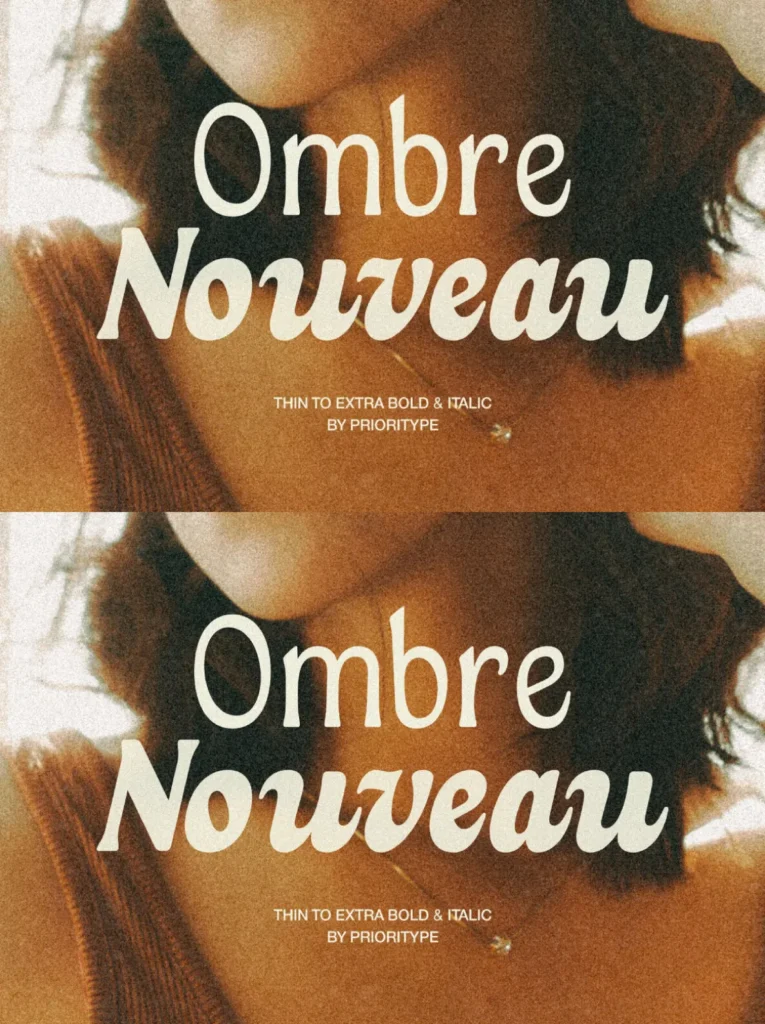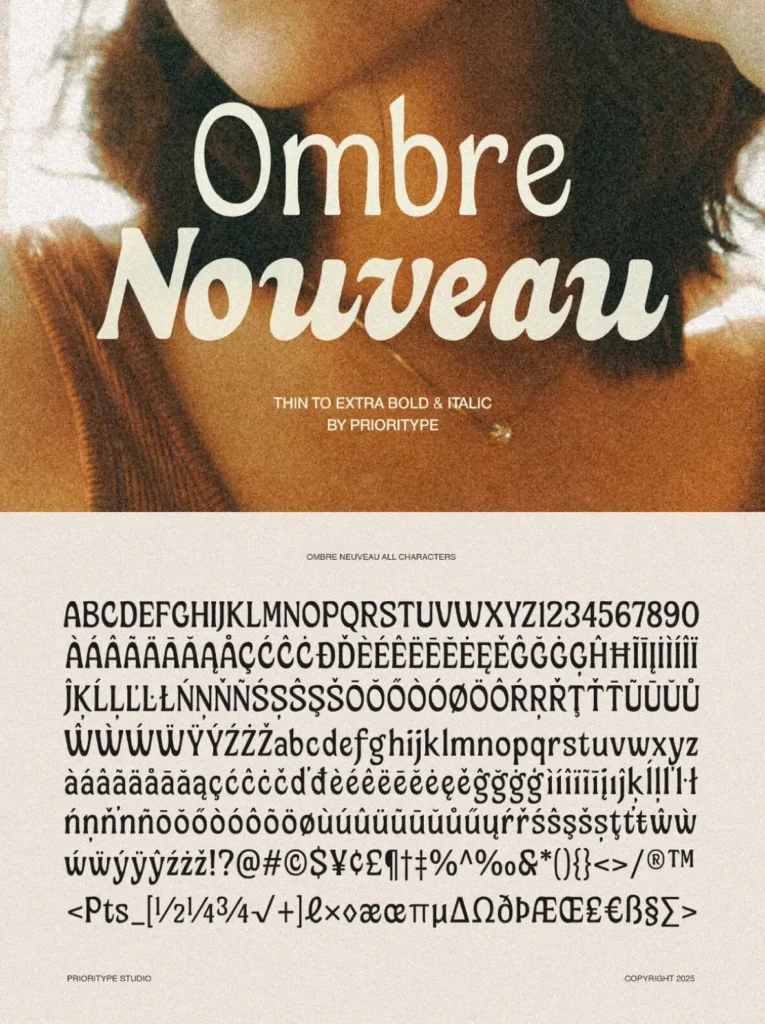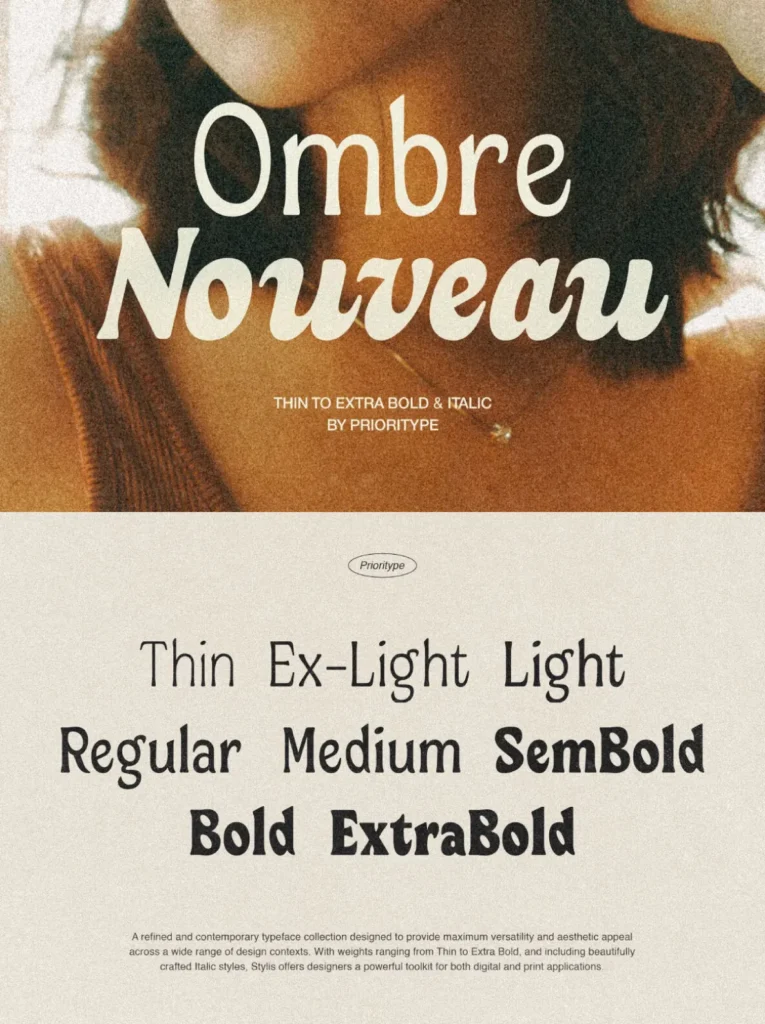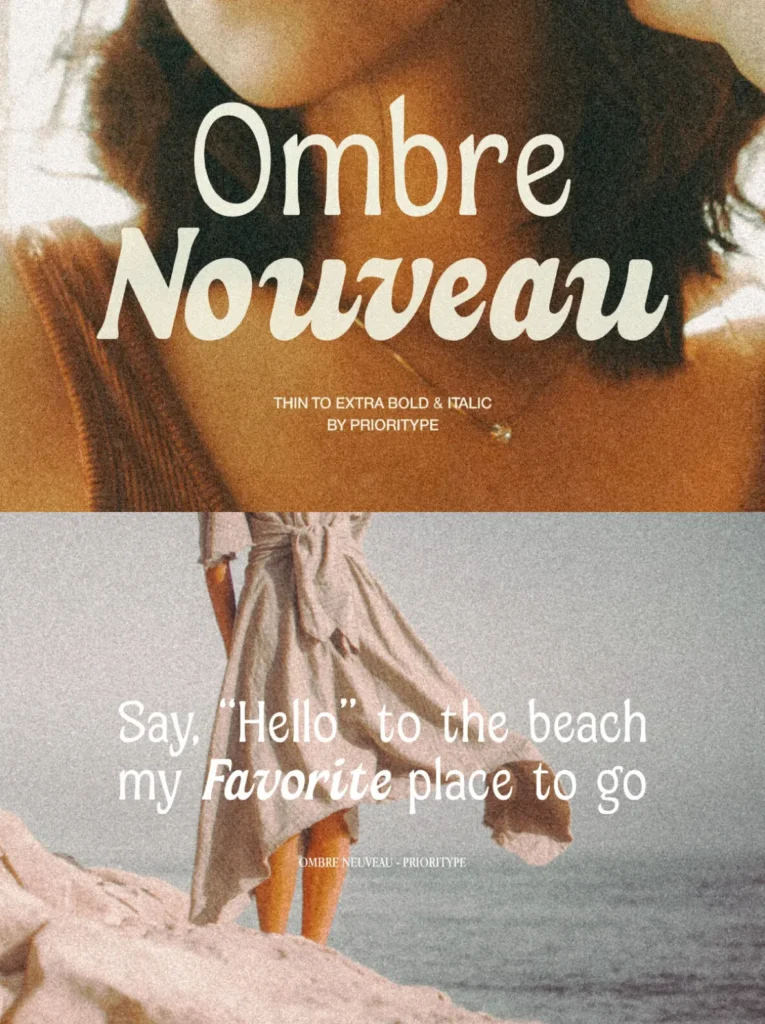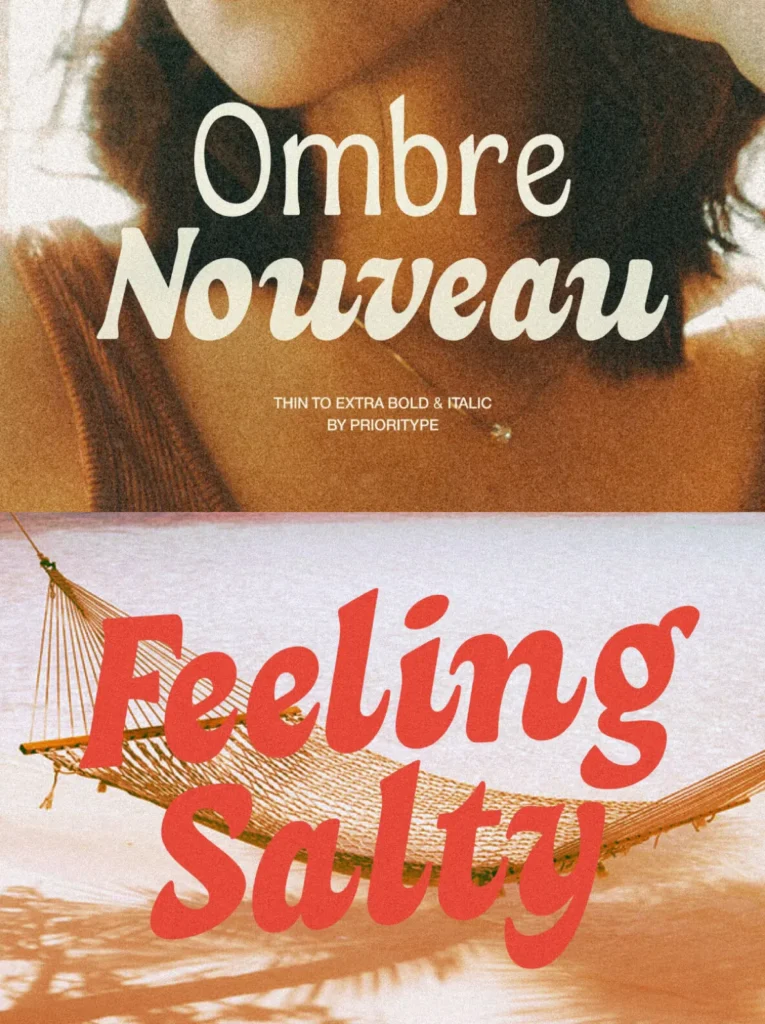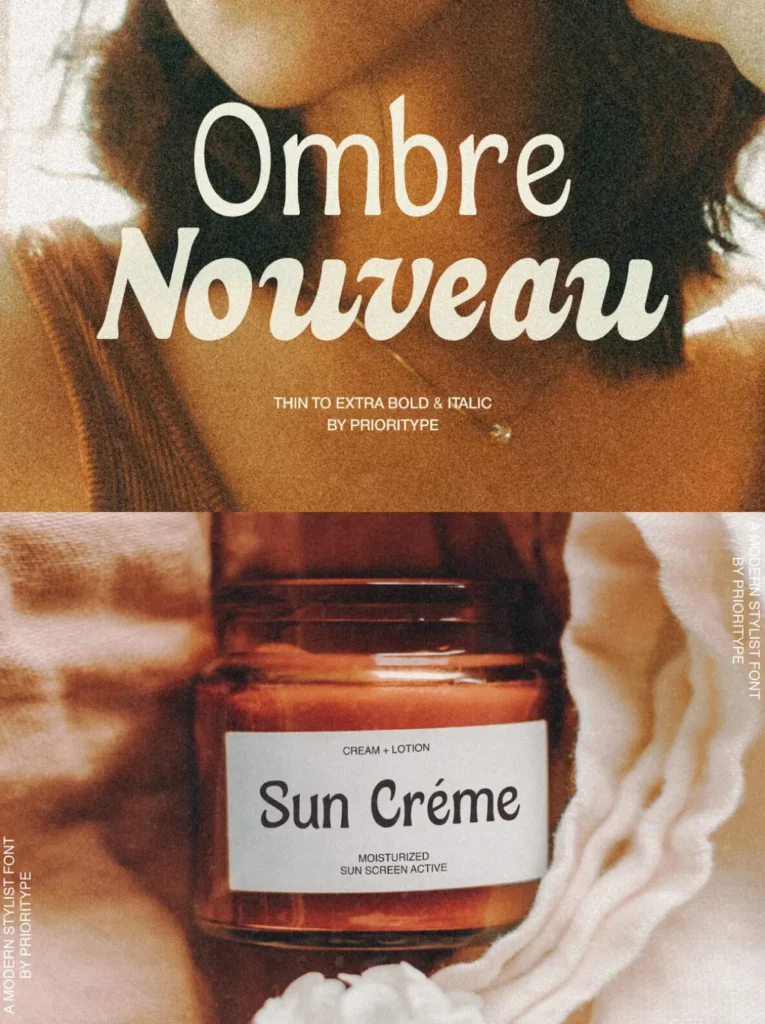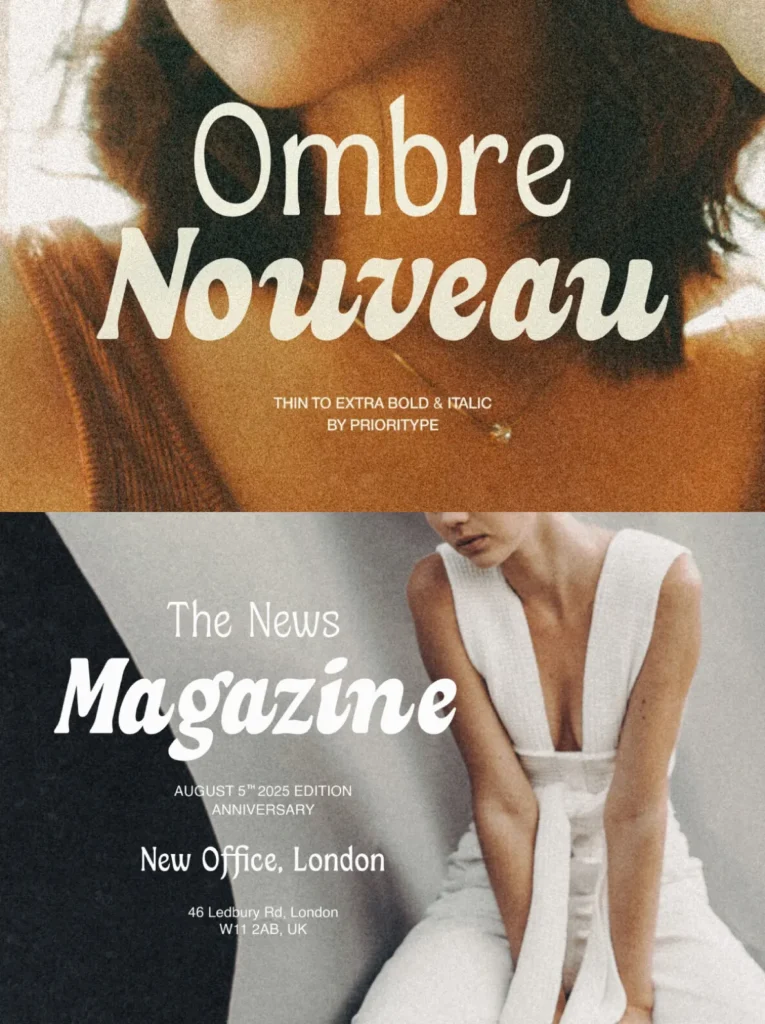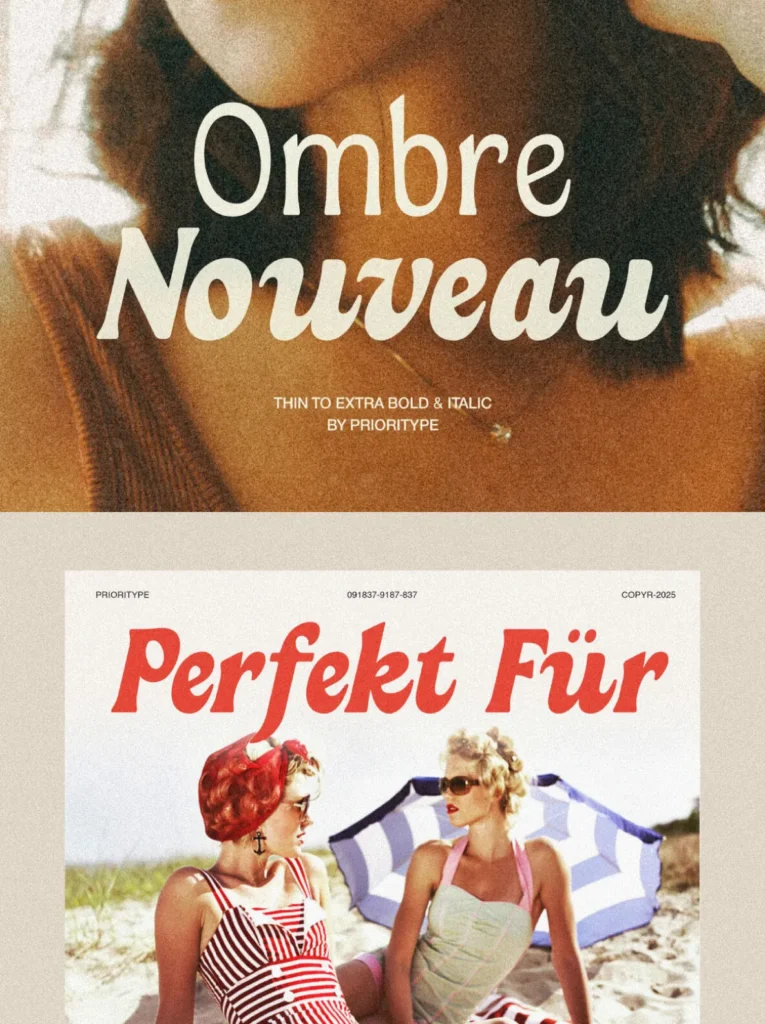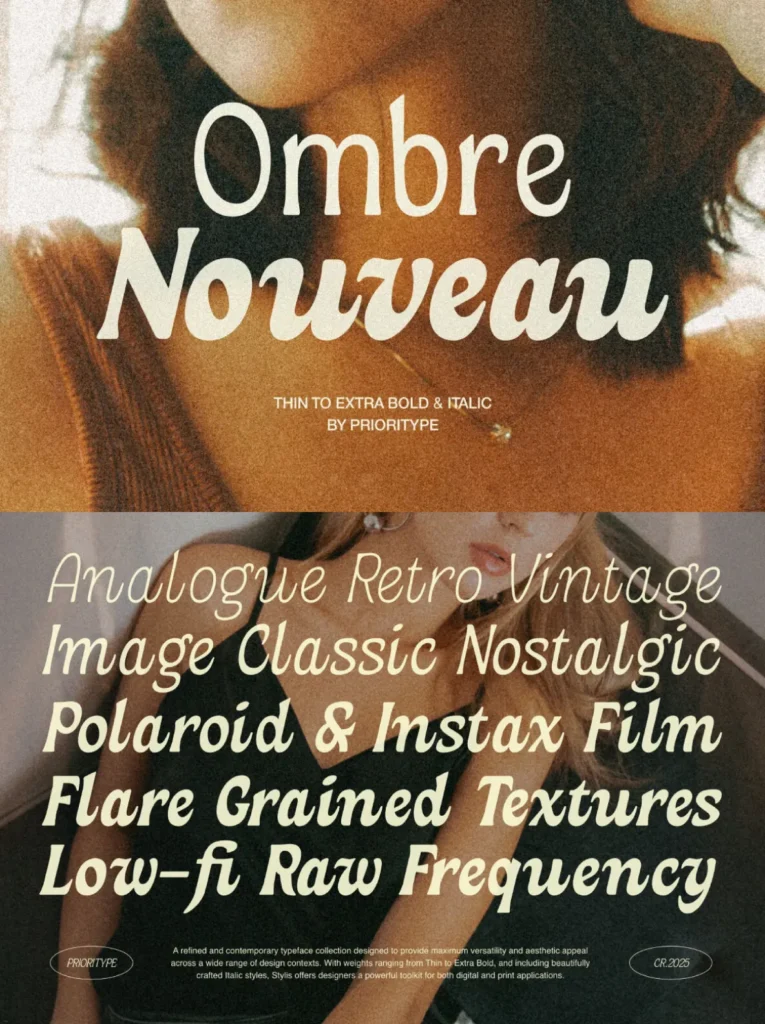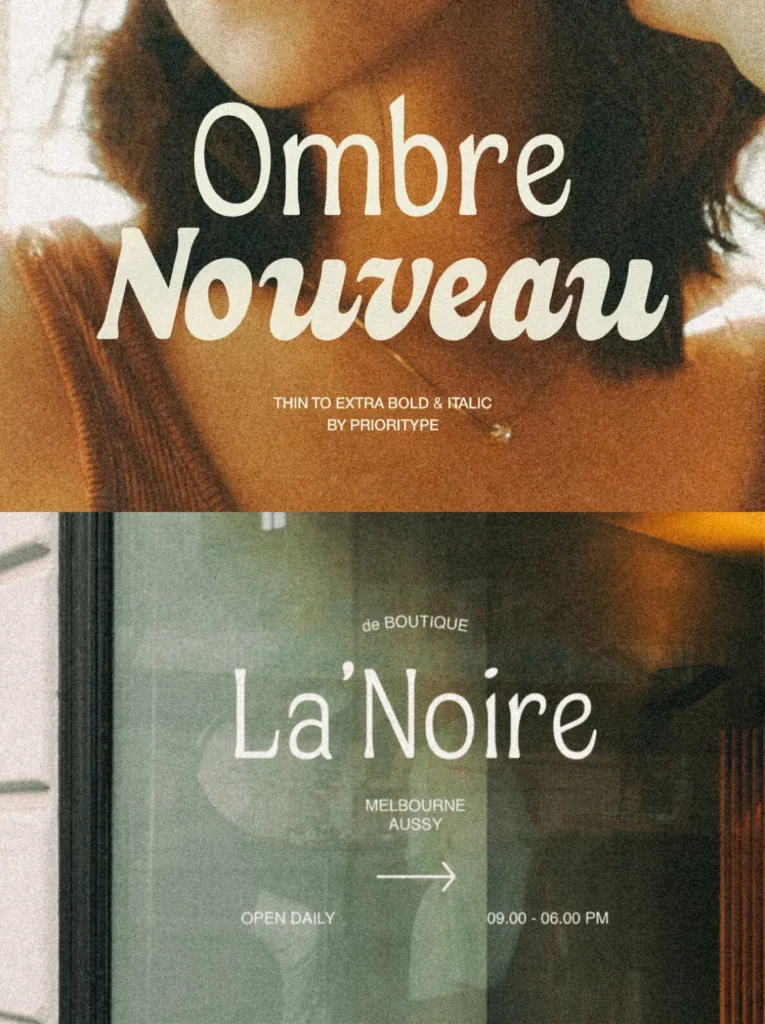
Ombre Nouveau Font
Ombre Nouveau: A Fusion of Retro Charm and Modern Elegance
The Ombre Nouveau serif font family marries the allure of retro aesthetics with the sophistication of the contemporary. Offering a range from Thin to Extra Bold, each weight is designed to infuse character and clarity into your projects. The inclusion of elegantly slanted Italic styles for each weight adds versatility and flair.
Ideal for editorial layouts, branding, logos, and refined headlines, Ombre Nouveau presents a timeless appeal with a modern edge. The addition of a comprehensive Variable Font file allows precise adjustment of weight and style, catering perfectly to your creative aspirations.
Features
Uppercase, Lowercase
Numerals, Punctuation
Multilingual Support & Ligatures